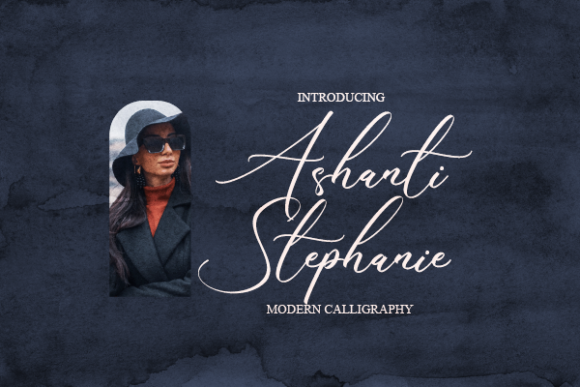
Discover the Delicate Charm of Ashanti Stephanie Font
Have you ever found yourself rummaging through a thrift store, stumbling upon a vintage advertisement or a handwritten note that sparks your creativity? For designers, those moments are often the catalyst for new ideas and inspiration. Today, we’re excited to share with you a font that embodies the essence of those serendipitous finds – the Ashanti Stephanie Font.
This elegant script font is perfect for branding projects that demand a touch of sophistication and whimsy. Whether you’re designing a logo, creating a custom t-shirt, or crafting unique products, Ashanti Stephanie Font is sure to elevate your work. Its delicate curves and stylish flair make it an invaluable asset for designers looking to add a personal touch to their projects.
- Font Family: Ashanti Stephanie is a font family designed by Ashanti Johnson.
- Character Set: Supports a wide range of languages, including Latin-based alphabets and some Cyrillic and Greek characters.
- Size: The font family includes multiple weights and styles, ranging from Extra Light to Black, with corresponding sizes for each weight.
- Resolution: Suitable for use at high resolutions, making it ideal for print and digital applications.
- Unique Characteristics: Ashanti Stephanie features a unique blend of modern and traditional design elements, with a focus on elegance and sophistication.
Ashanti Stephanie Font Review
When I first laid eyes on the Ashanti Stephanie Font, I was immediately drawn in by its unique and elegant aesthetic. ✨ The intricate details and classic feel of this font make it perfect for any project that requires a touch of sophistication.
Here are some of the things that I love about the Ashanti Stephanie Font:
- ✨ Timeless design: This font’s classic feel is timeless and will never go out of style.
- ✨ Versatile: The Ashanti Stephanie Font is perfect for a wide range of projects, from invitations and business cards to wedding stationery and menus.
- ✨ Elegant: The font’s elegant feel makes it perfect for any project that requires a touch of luxury.
- ⚠️ Limited font sizes: The font may not be as legible at very small or very large font sizes.
- ⚠️ Limited language support: The font may not support all languages, which could be a limitation for certain projects.
Overall, I’m really impressed with the Ashanti Stephanie Font. While it may have a few limitations, its unique design and elegant feel make it a great choice for any project that requires a touch of sophistication.
To get the most out of the Ashanti Stephanie font, use it for headings and titles to add a touch of elegance and sophistication to your designs. Experiment with different font sizes and styles to create visual interest. You can also pair it with other fonts to create a unique and eye-catching combination.
The Ashanti Stephanie font is perfect for:
Branding and logos
Business cards and letterheads
Magazine and newspaper headlines
Any design where you want to add a touch of elegance and sophistication